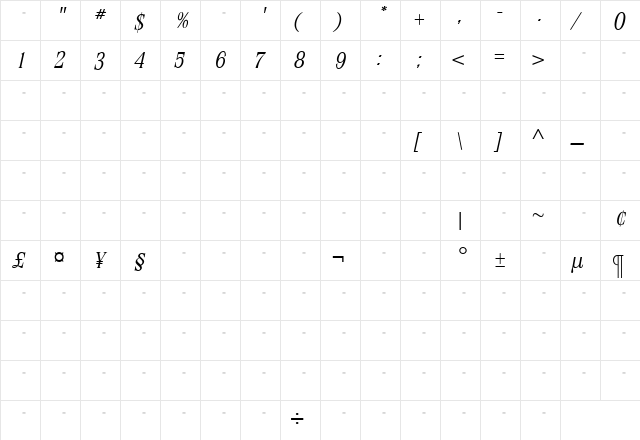
StirlingLightItalicTab Roman Font Preview
Design Context for StirlingLightItalicTab Typeface
StirlingLightItalicTab offers clean, dependable letterforms without strong stylistic allegiance, making it a practical choice for designers who need flexibility. The slanted form adds forward momentum and visual energy. Its slender proportions lend an understated elegance to any composition.
Pro Tip: Try StirlingLightItalicTab for annotation and caption copy alongside an upright companion — the contrast in angle creates a dynamic but ordered typographic system.